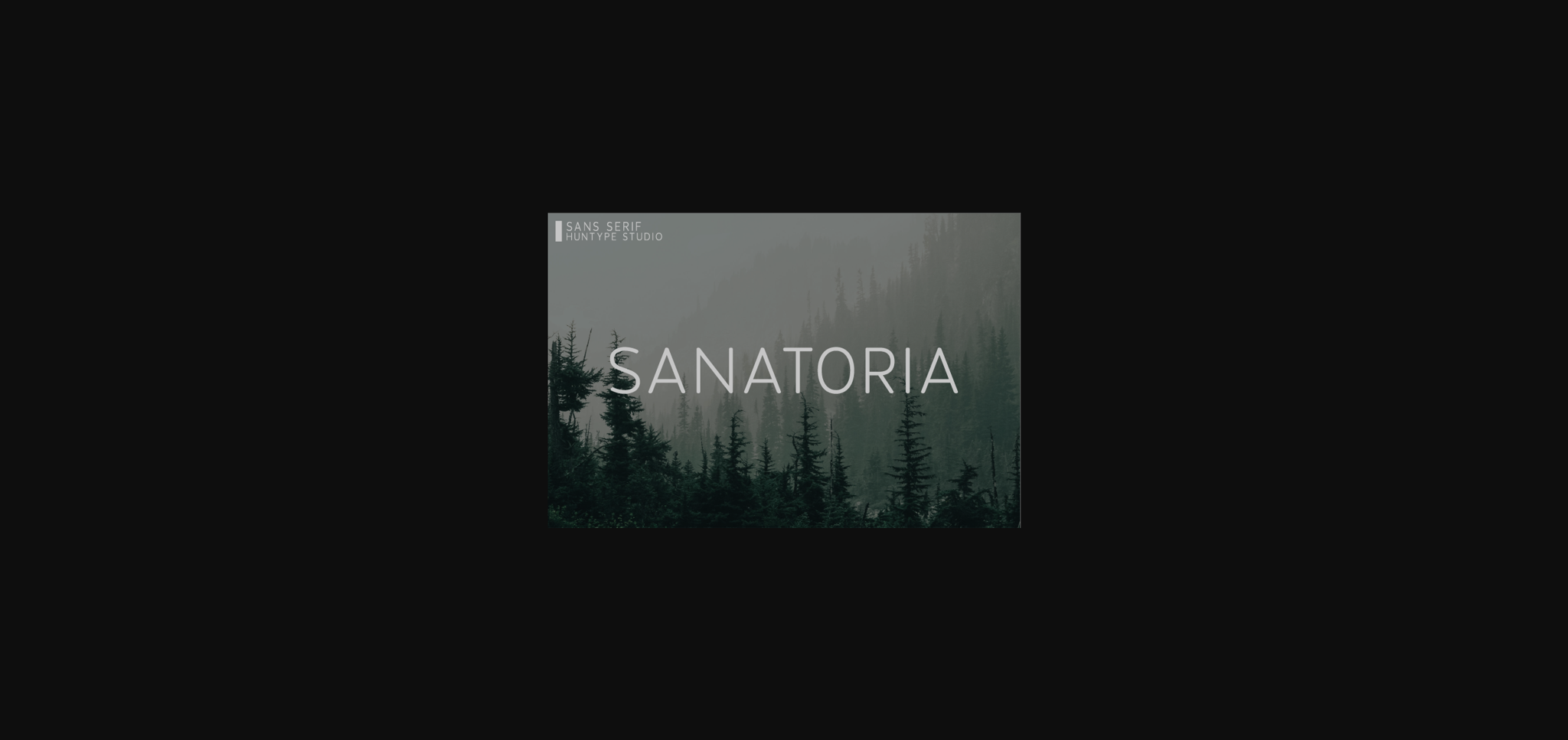
Sanatoria Font
About Sanatoria Font
Sanatoria is an elegant and versatile sans serif font. This versatility will appeal to a wide range of crafty ideas, from letterheads and titles, to stationery.